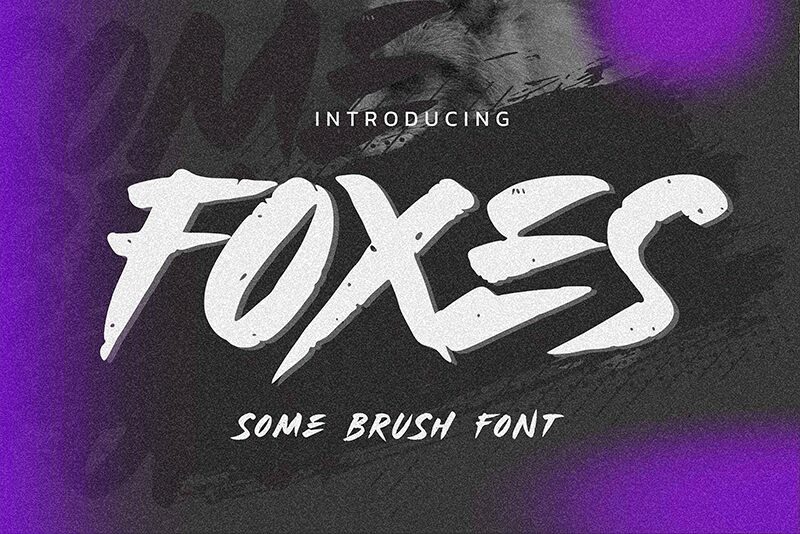
Foxes
Foxes, a creation by Gassstype, is a bold brush font that exudes an undeniable energy and movement within its strokes. Each character boasts an artistic flair that mimics the unpredictability and grace of paint brushed by hand. This font's thick, expressive lines offer a tactile sense of depth, making it not just a typeface but an artistic statement.
The aesthetic appeal of Foxes lies in its organic texture and the dynamic variation in its stroke widths. Such characteristics give it a raw edge perfect for designs seeking to capture attention and convey passion or action. Whether it graces the cover of a bold magazine, headlines an event poster, or adds character to branding projects, Foxes stands out with its distinctive style.
Embracing both modernity and the timeless touch of handcrafted artistry, Foxes is suitable for diverse creative ventures ranging from digital media to print. Its robust form renders it highly legible even from afar, ensuring that messages not only resonate aesthetically but also maintain clarity across various applications.